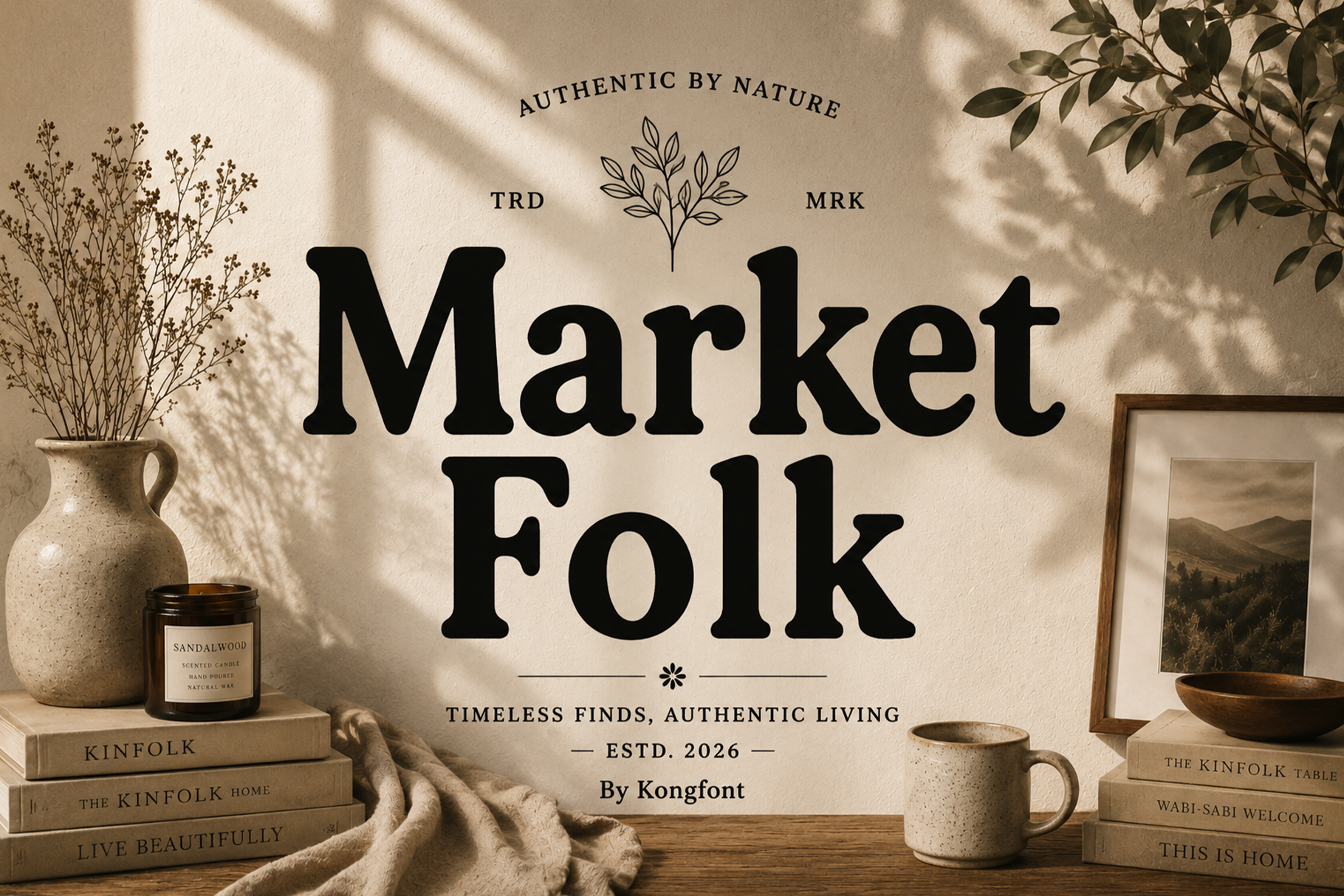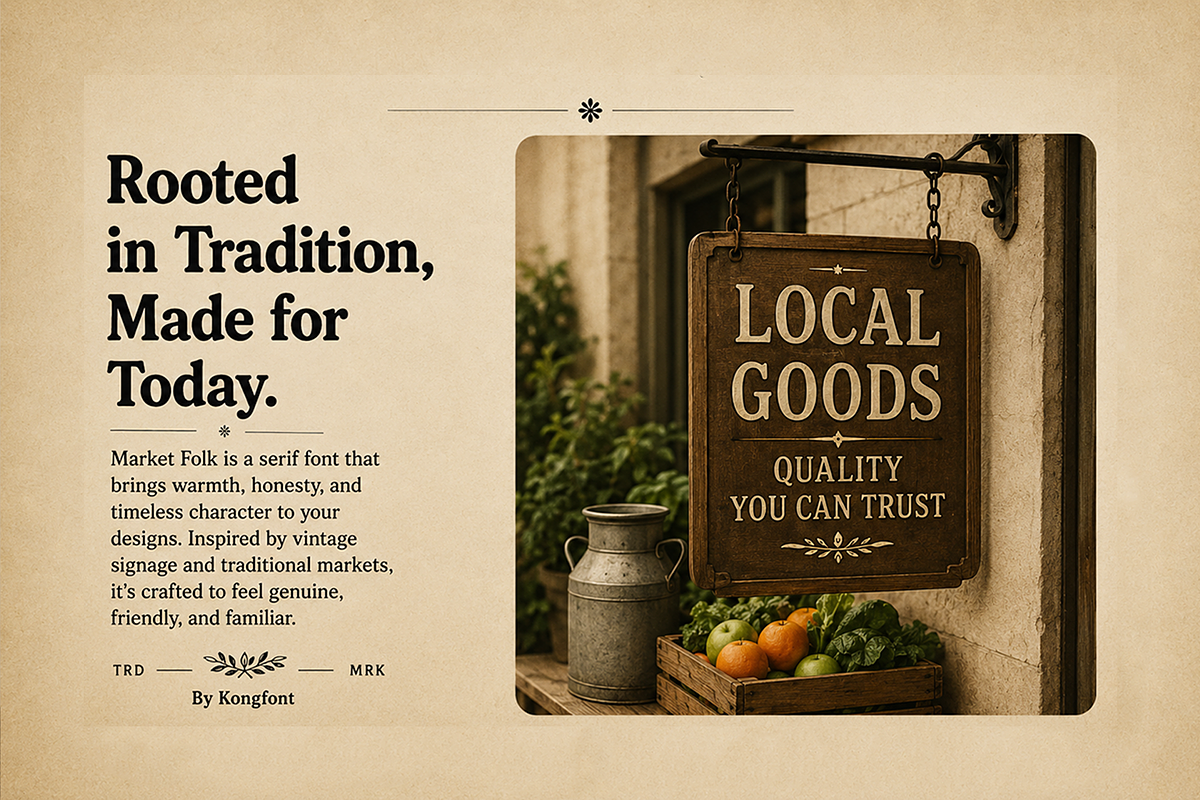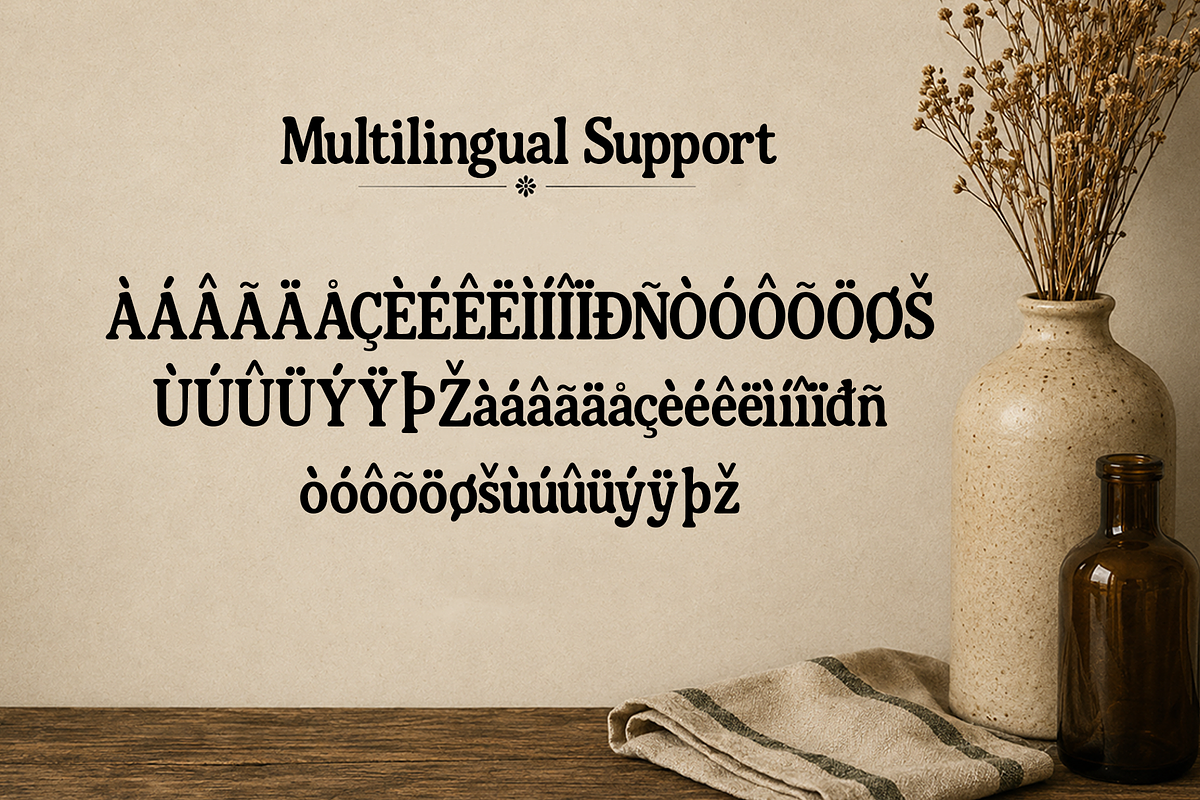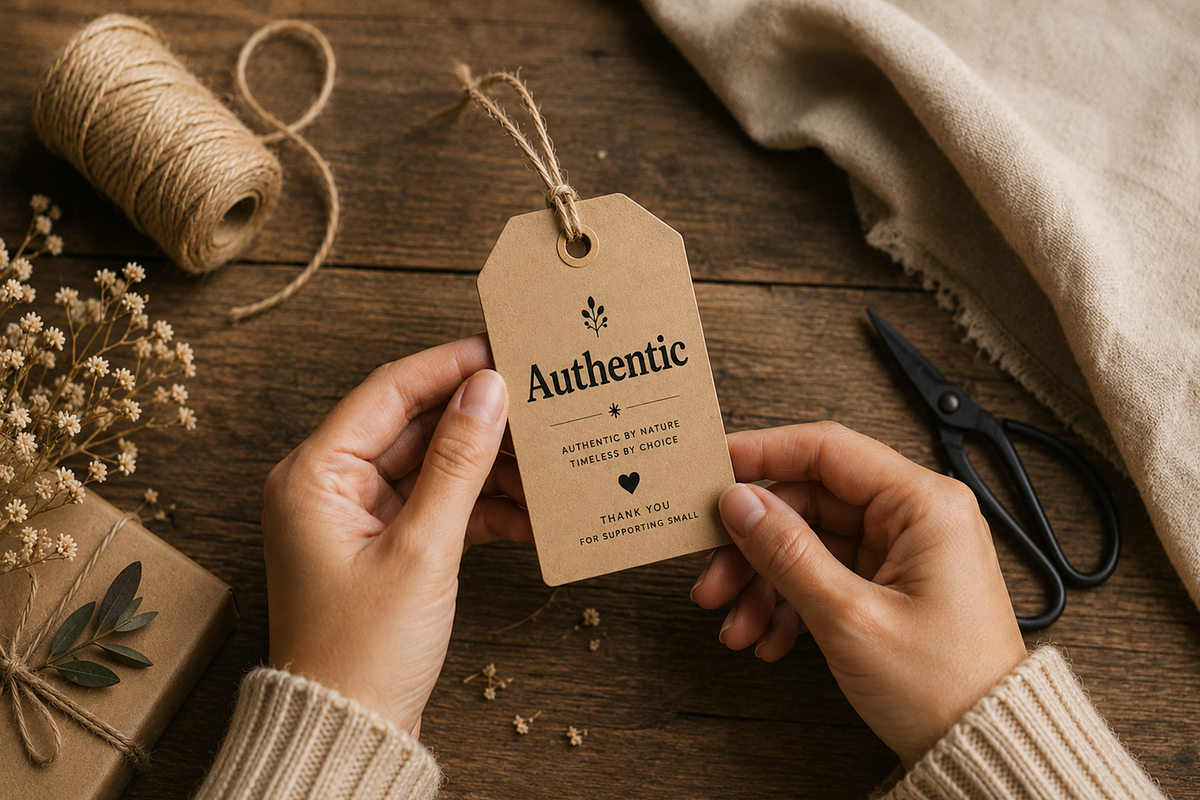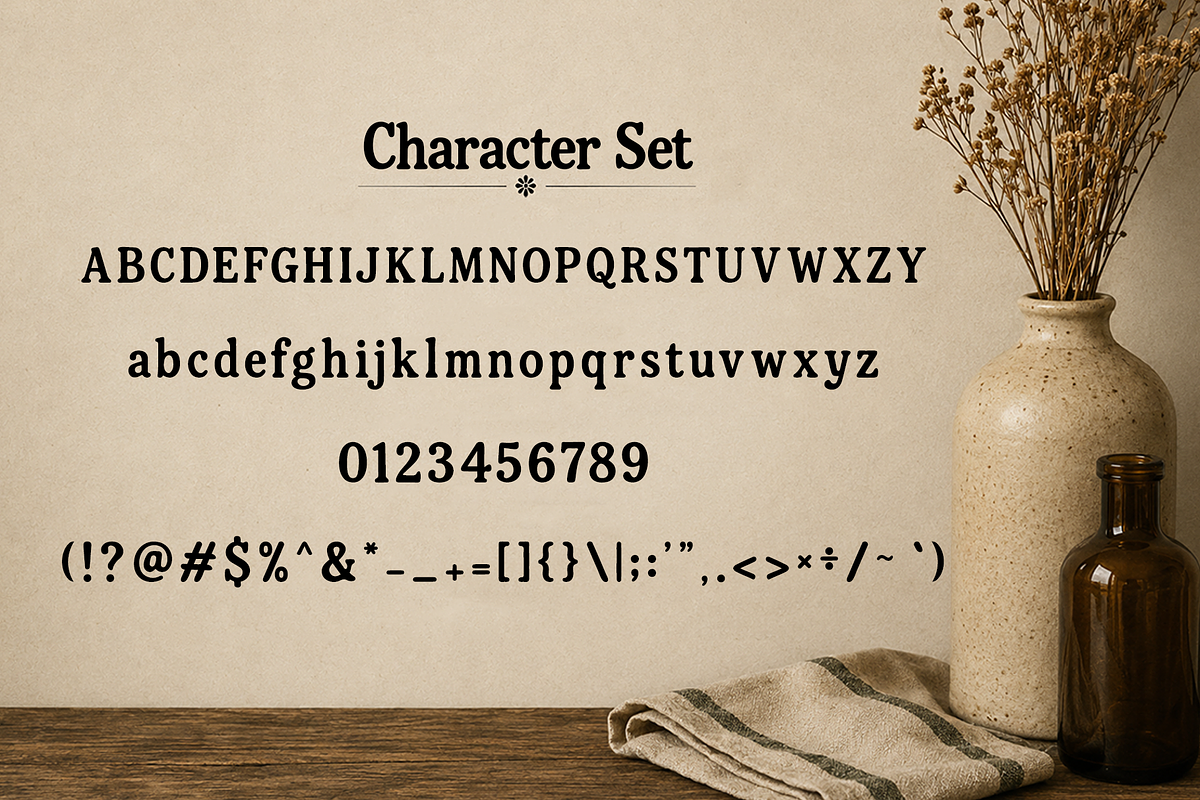
Market Folk - Modern Serif Font
Market Folk is a modern serif font that blends timeless sophistication with a warm, handcrafted character. Inspired by artisan markets, boutique branding, and contemporary lifestyle aesthetics, this typeface features elegant serifs, organic curves, and balanced proportions that create a refined yet approachable look.
Carefully crafted for modern creatives, the font includes uppercase and lowercase letters, numerals, punctuation, and multilingual support, ensuring flexibility across print and digital media. Whether you're building a premium artisan brand or designing sophisticated editorial content, Market Folk adds warmth, character, and style to every project.